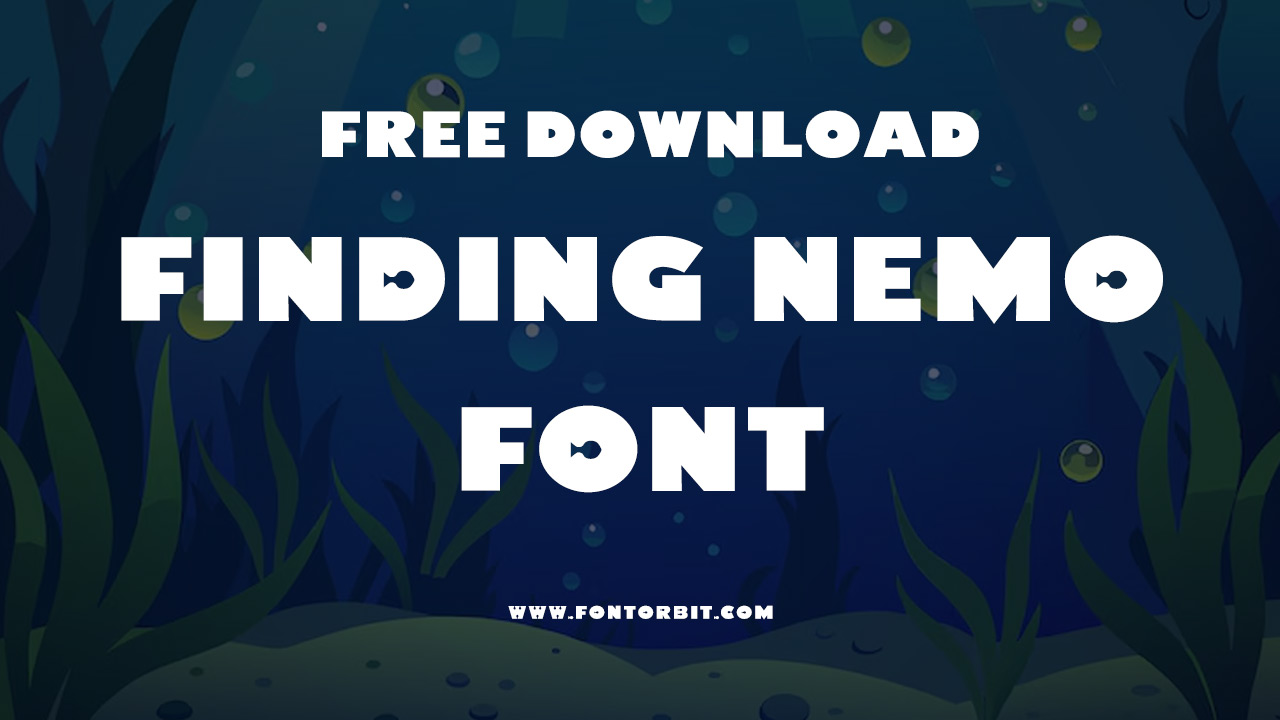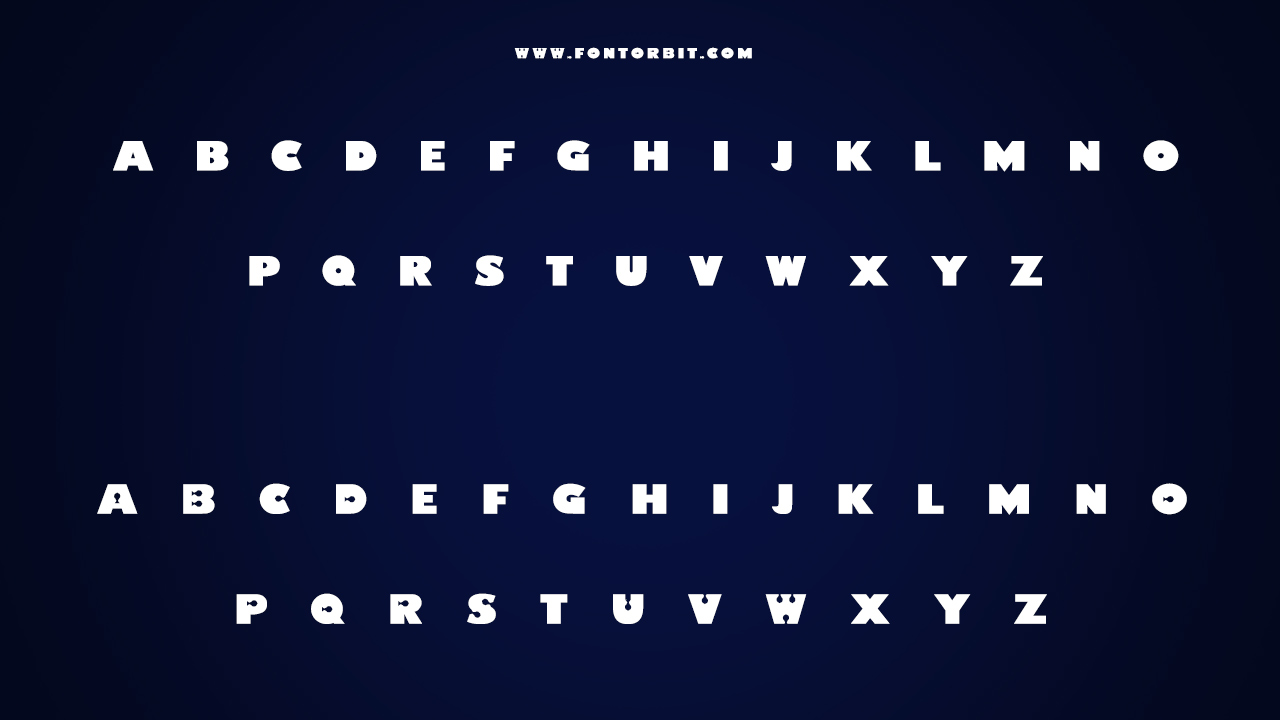
The Finding Nemo Font, designed by Jens R. Ziehn and offered by Filmfonts, captures the whimsical spirit of the 2003 animated film Finding Nemo.
This Disney-inspired typeface closely mimics the title typography from the movie’s poster, featuring both uppercase letters and distinctive symbols resembling fins. The actual name of the font is Findet Nemo.
Findet Nemo Regular
This font is designed to replicate the playful and adventurous essence of the movie’s title, ideal for various design projects. Free for personal use, it’s perfect for projects that seek to evoke the film’s adventurous and playful charm.
- Movie-Themed Designs
- Children’s Projects
- Educational Materials
- Fun Graphics
The Finding Nemo Font is excellent for crafting engaging, movie-themed designs, vibrant posters, and playful educational materials. Its whimsical design is perfect for projects that capture the underwater adventure’s charm and excitement.
The Finding Nemo Font combines whimsical design with a touch of movie magic, making it a great choice for personal projects and creative endeavors. Use the font for movie-themed designs, playful graphics, and educational materials to evoke the charm of the film. Its unique style brings a playful, cinematic feel to any design.
The Finding Nemo Font is a Disney-inspired typeface created by Jens R. Ziehn, closely resembling the typography used in the film’s title.
Pair the Finding Nemo Font with playful, rounded fonts like Baloo or Fredoka One, and complement it with vibrant, underwater-themed colours to enhance its whimsical and adventurous feel in design projects.
The font features uppercase letters and special symbols, designed to capture the adventurous and playful spirit of the movie.
The font supports standard Latin characters, suitable for most basic design needs.